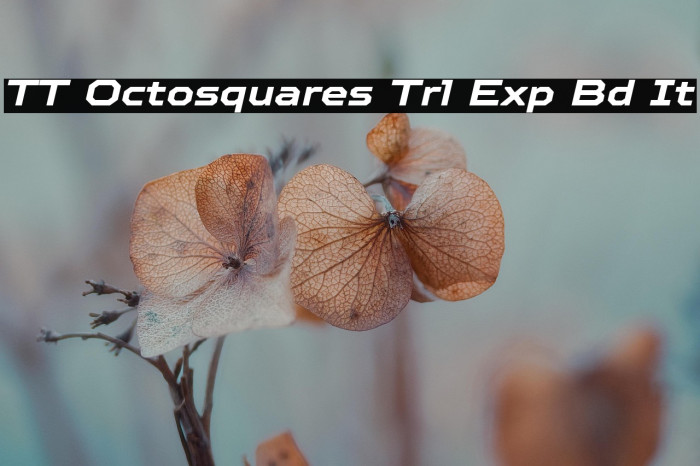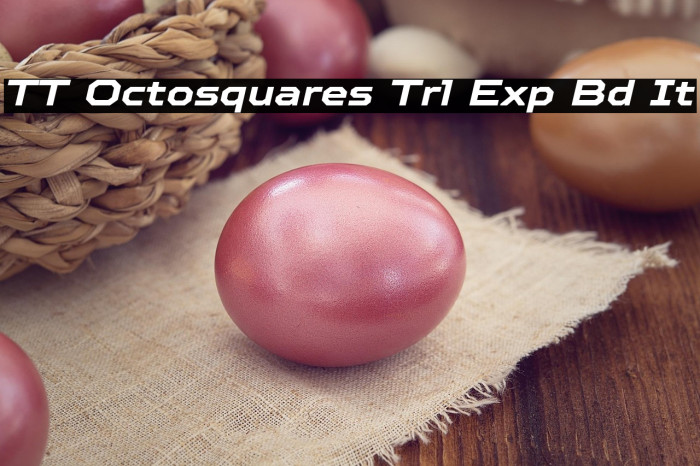
TT Octosquares Trl Exp Bd It Font
TT Octosquares Trl Exp Bd It Description
This font exhibits a bold and dynamic style with a distinctly modern and geometric appearance. The characters are designed with angular edges and a slight slant, giving them a sense of motion and energy. The uppercase and lowercase letters maintain a consistent style, with the uppercase being slightly more pronounced. The numbers and special characters follow the same design principles, ensuring uniformity across the font. The overall look is sleek and contemporary, making it suitable for projects that require a strong visual impact.
| Use Case | Logos, Headlines, Branding |
| Proposed Projects | Ideal for branding, sports team logos, tech company advertisements, and futuristic design projects. |